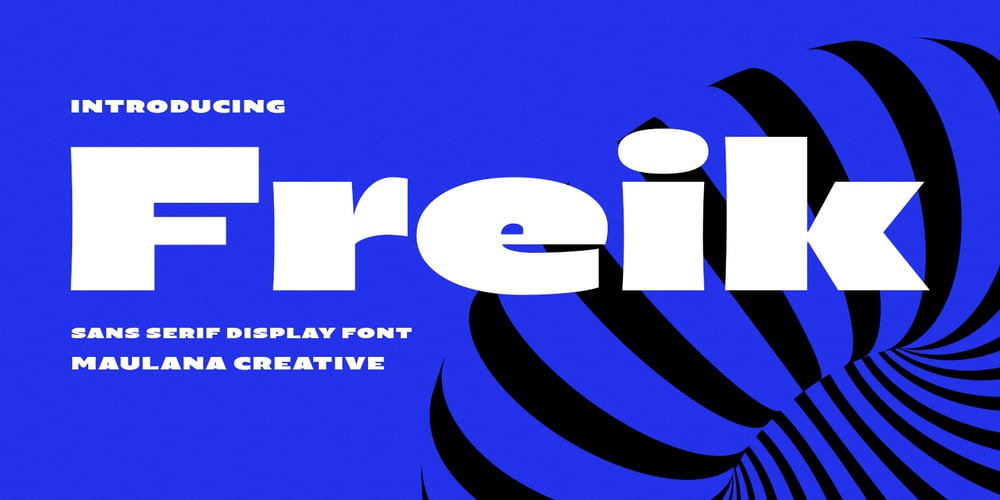
Freik
Freik font
Freik Font Family was designed by Gilang Maulana and published by Maulana Creative. Freik contains 1 styles and family package options. Freik is a wide strong headlines display sans font. With bold sharp edge stroke, fun character with a bit of ligatures and alternates. To give you an extra creative work. Freik font support multilingual more than 100+ language. This font is good for logo design, Social media, Movie Titles, Books Titles, a short text even a long text letter and good for your secondary text font with sans or serif. Make a stunning work with Freik font. Cheers, Maulana Creative